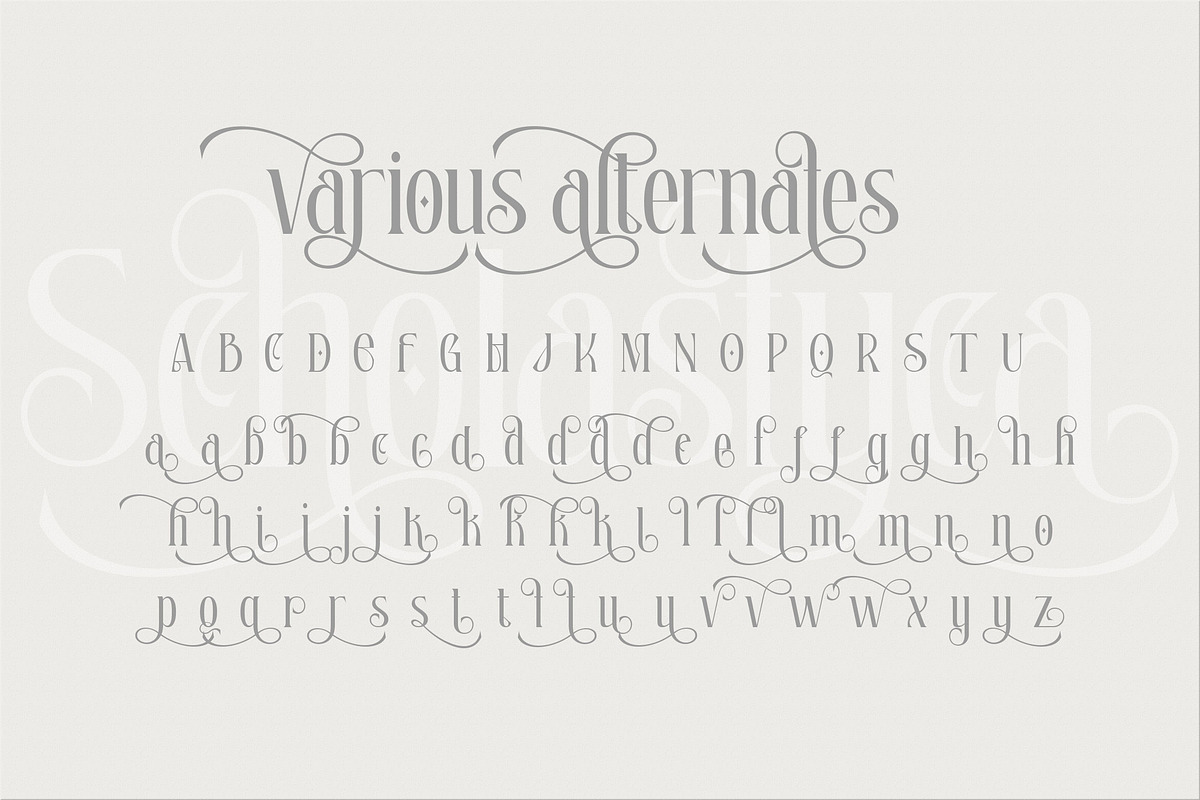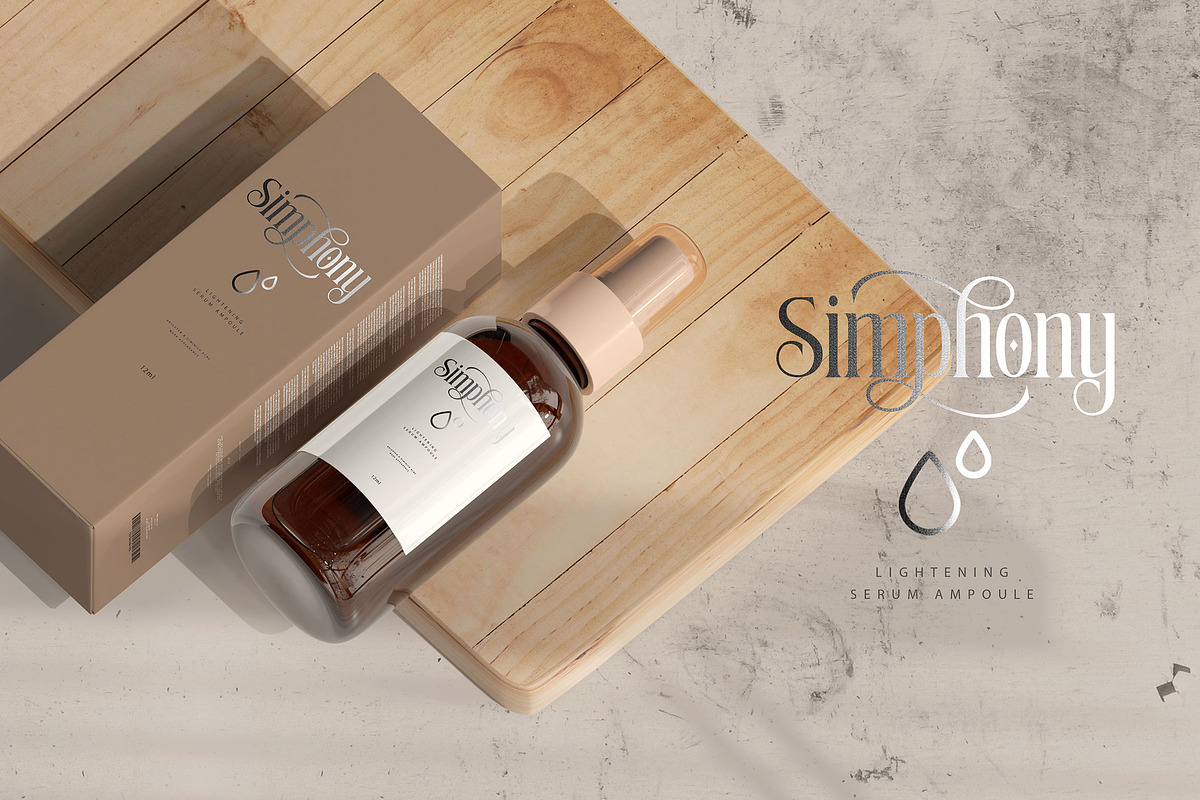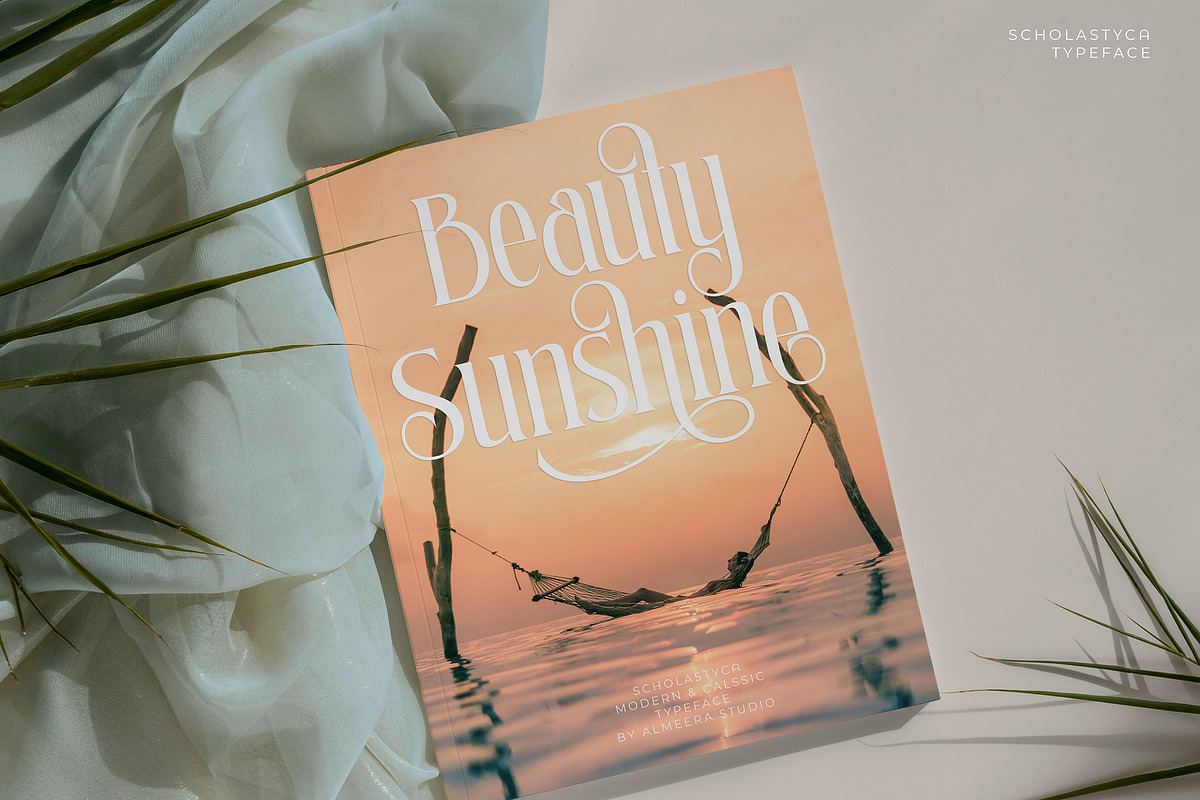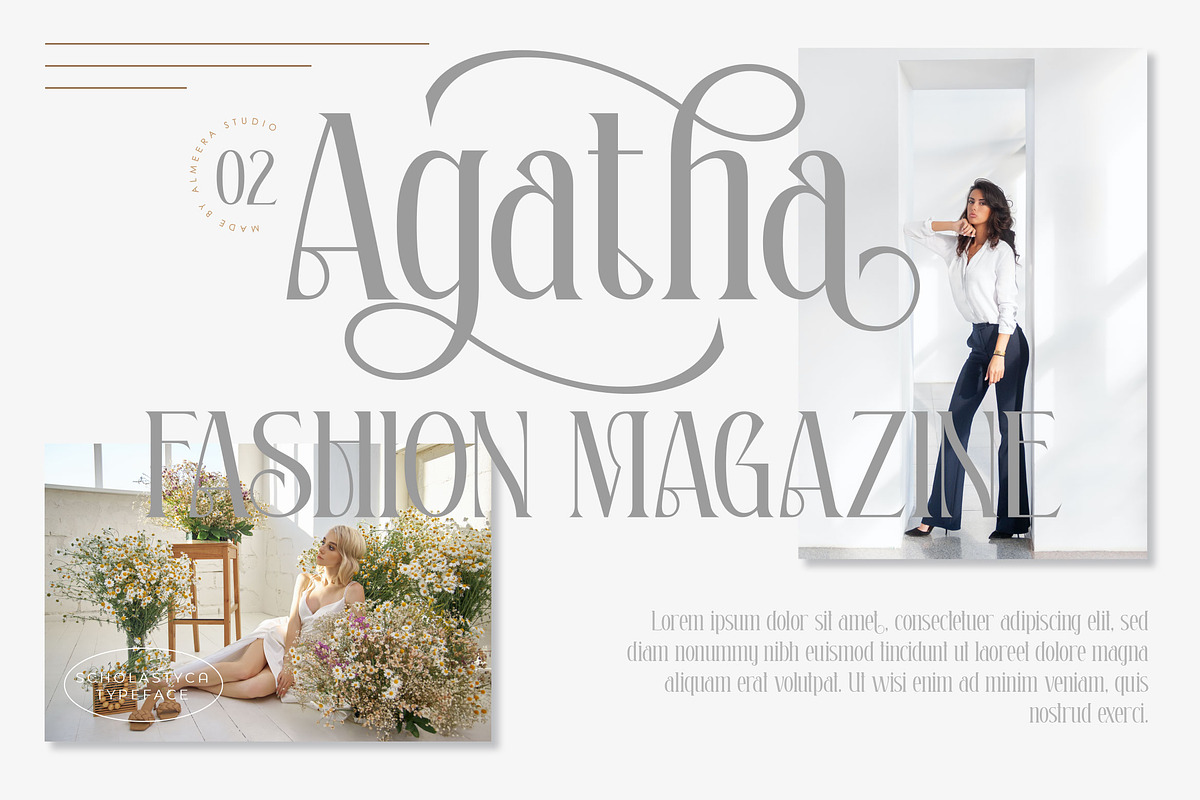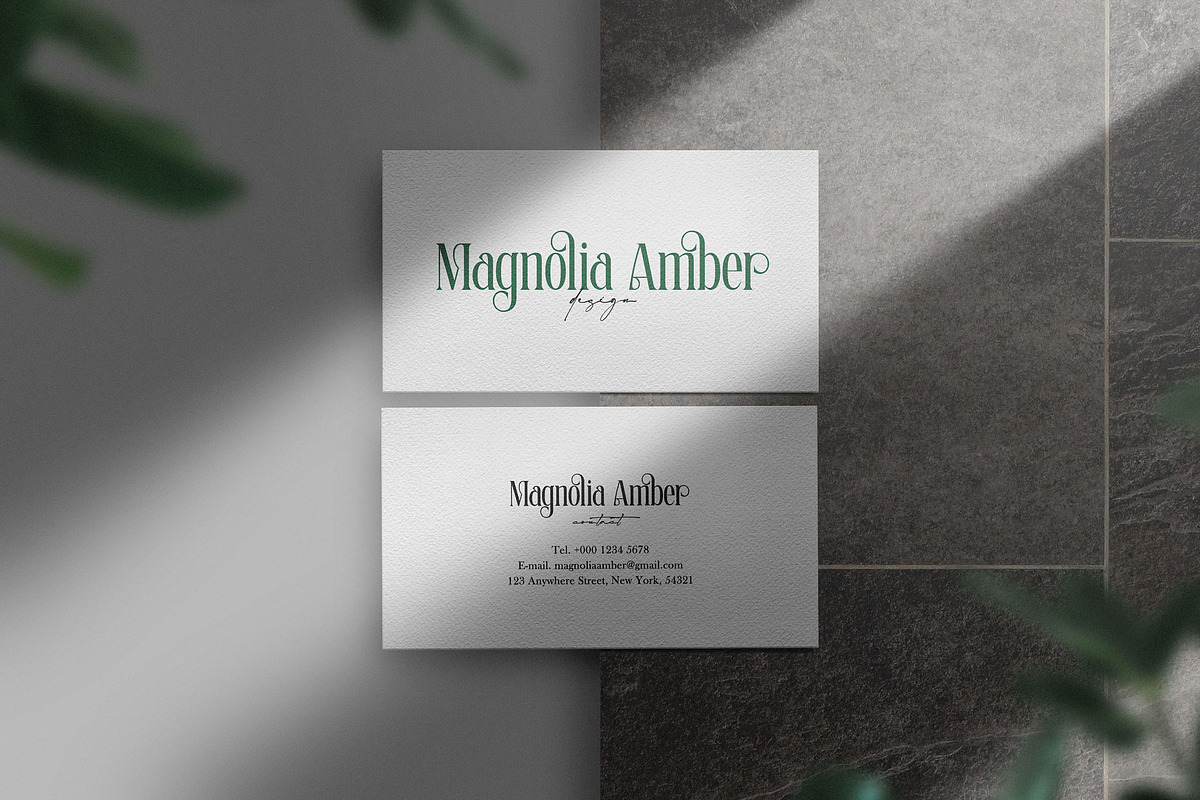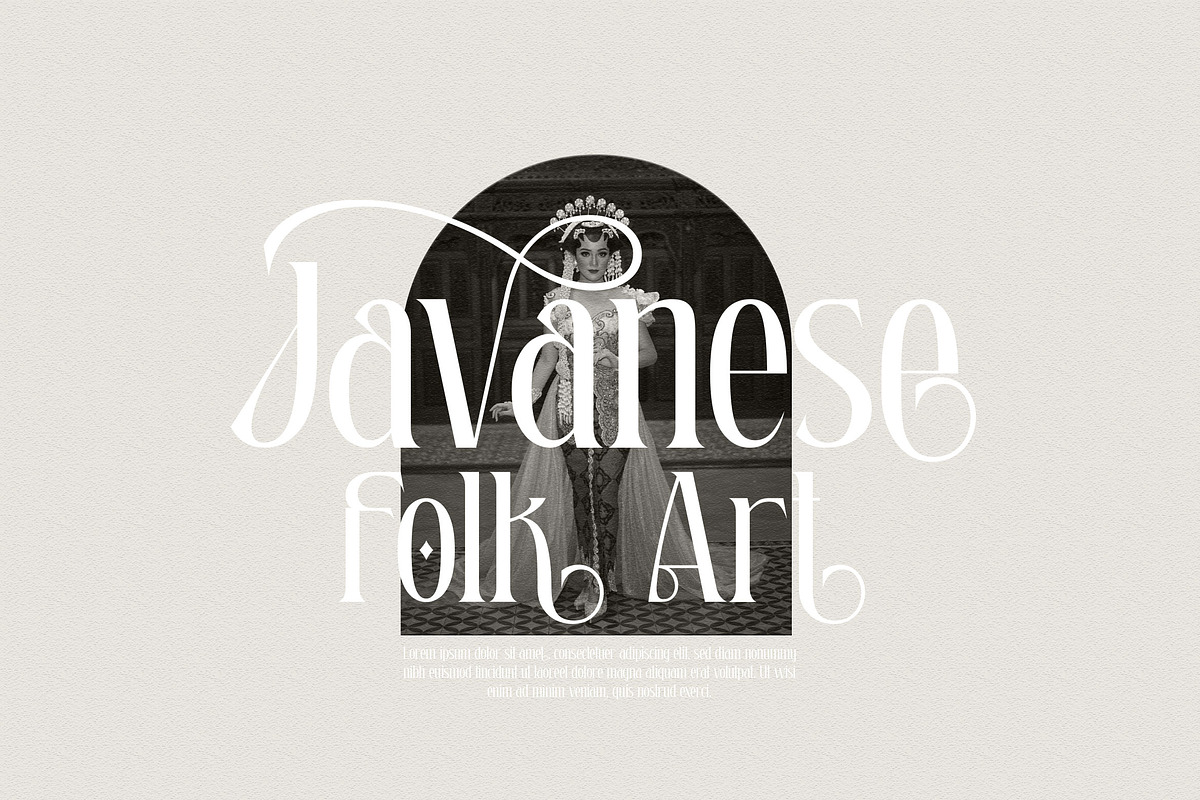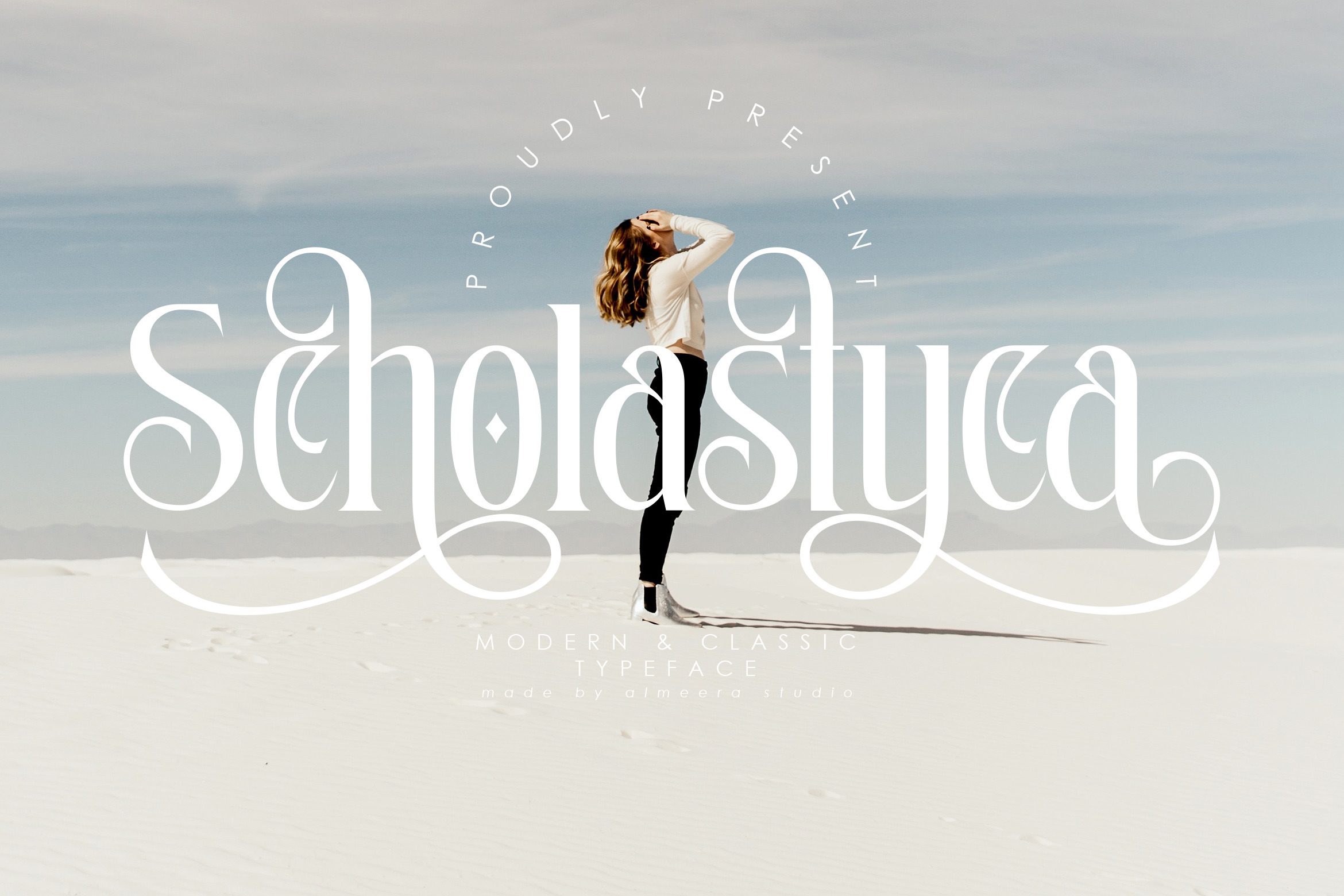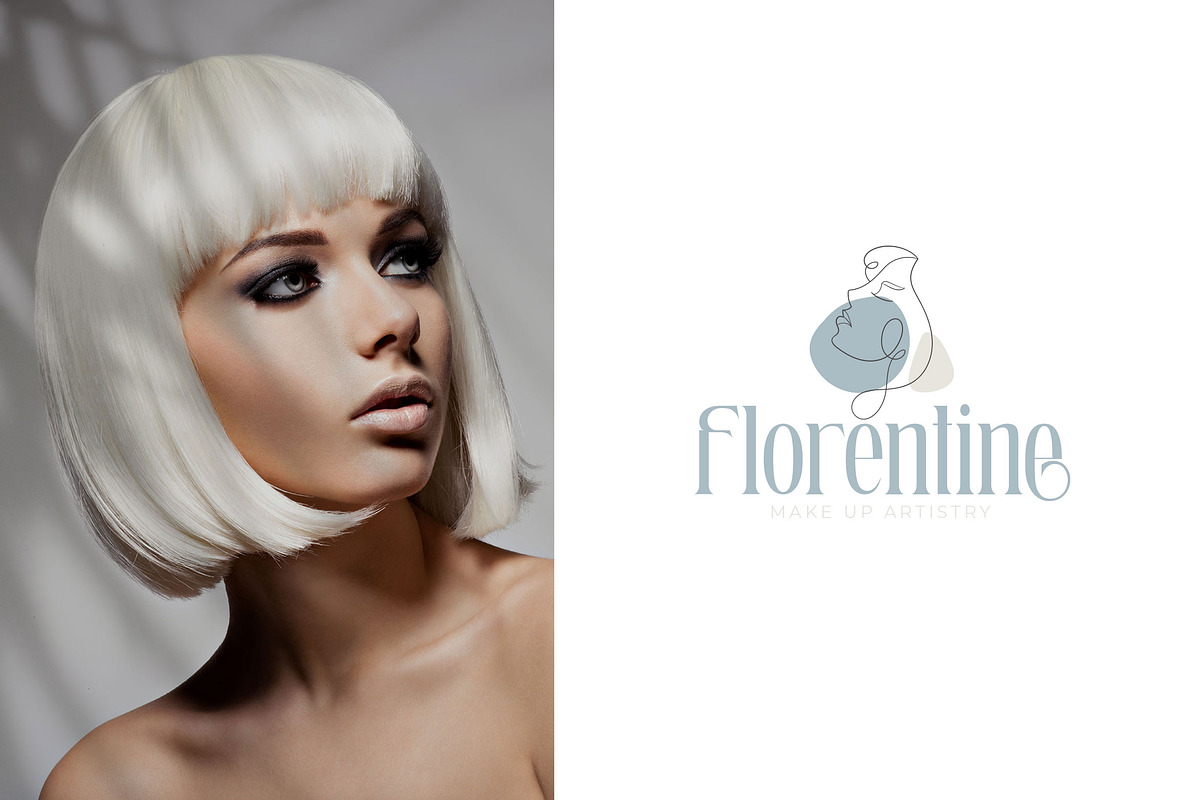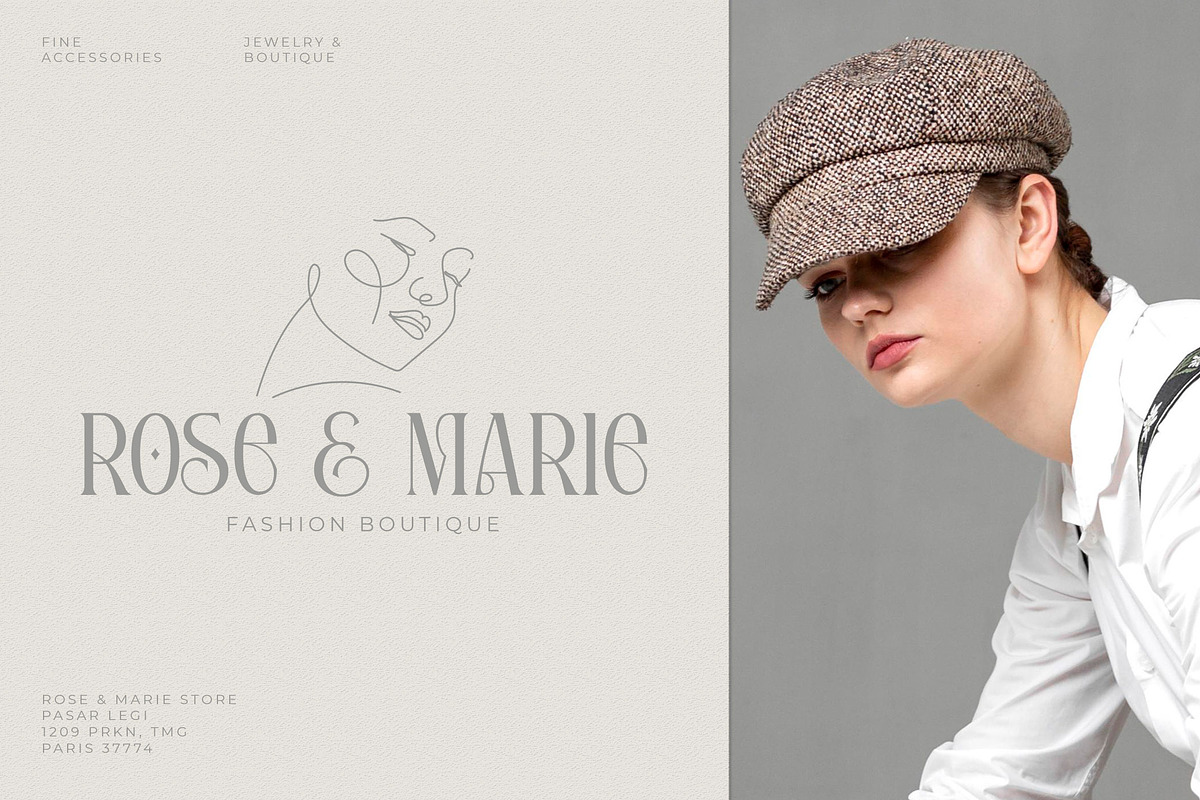
Scholastyca | Serif Typeface
Introducing the new Scholastica Modern & Classic Serif Typeface!!! Scholastica is a luxury and glamour serif typeface.This font is both modern and nostalgic and works great for logos, magazine, social media. Already matched up and ready to be used together for your next design! For those of you who are needing a touch of elegant, stylish, classy, chic and modernity for your designs, this font was created for you! Perfect for editorial projects, Logo design, Clothing Branding, product packaging, magazine headers, or simply as a stylish text overlay to any background image.